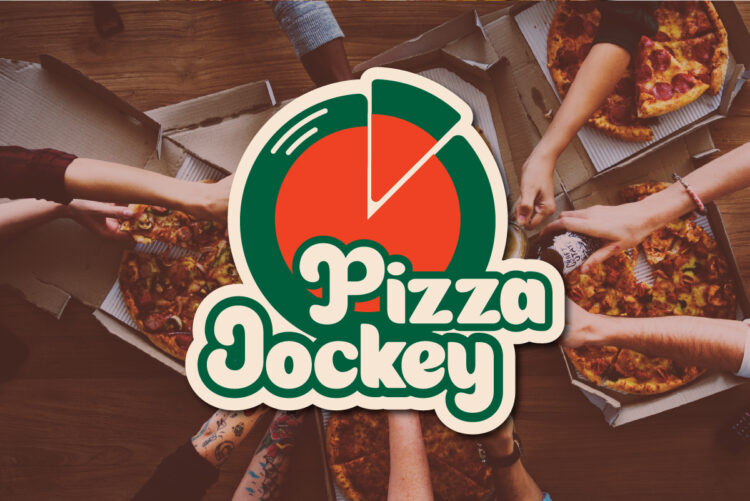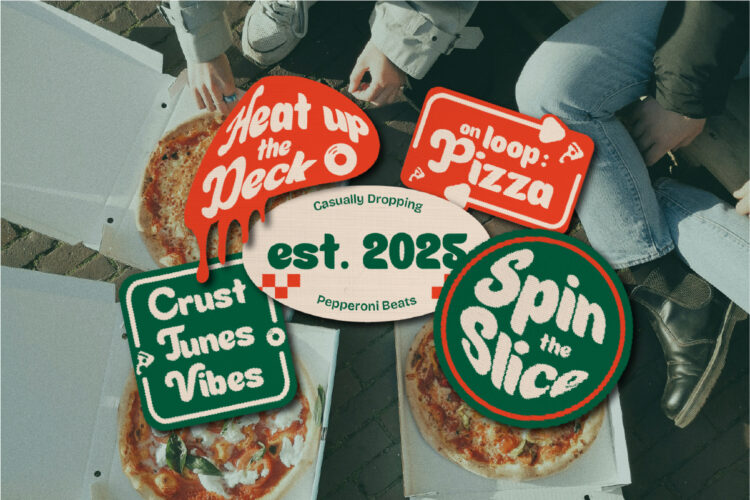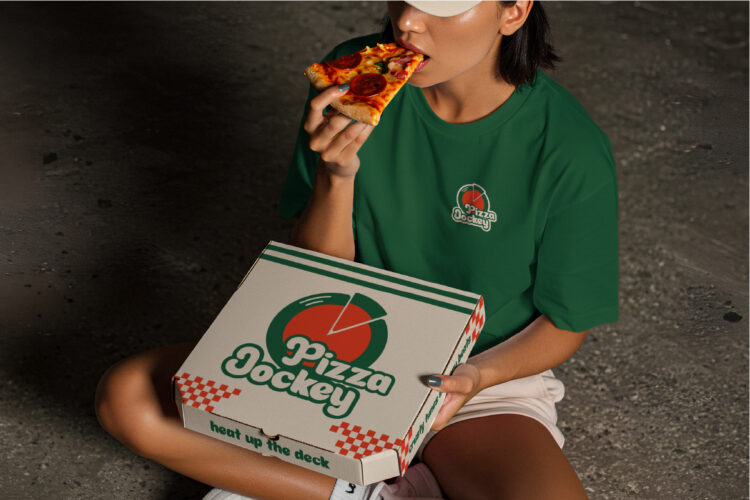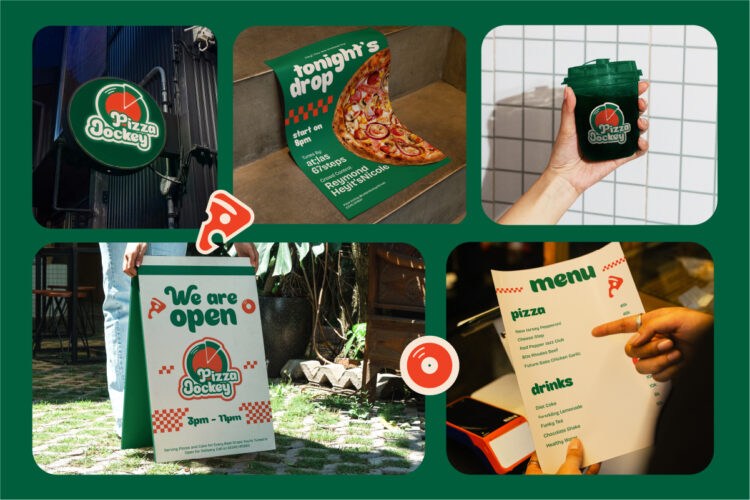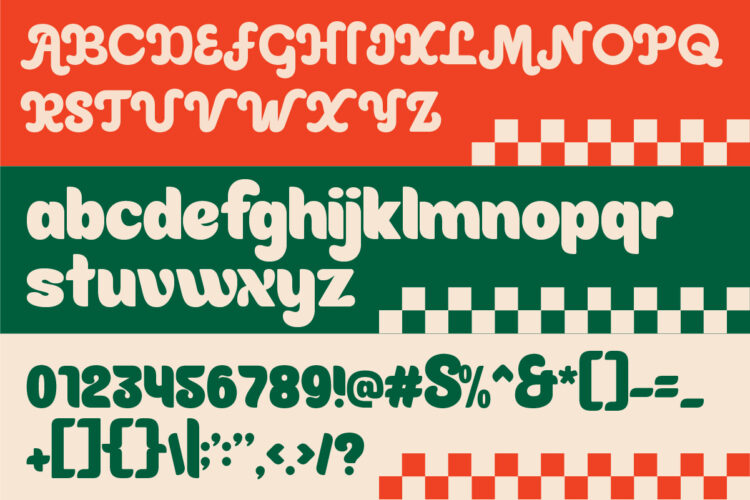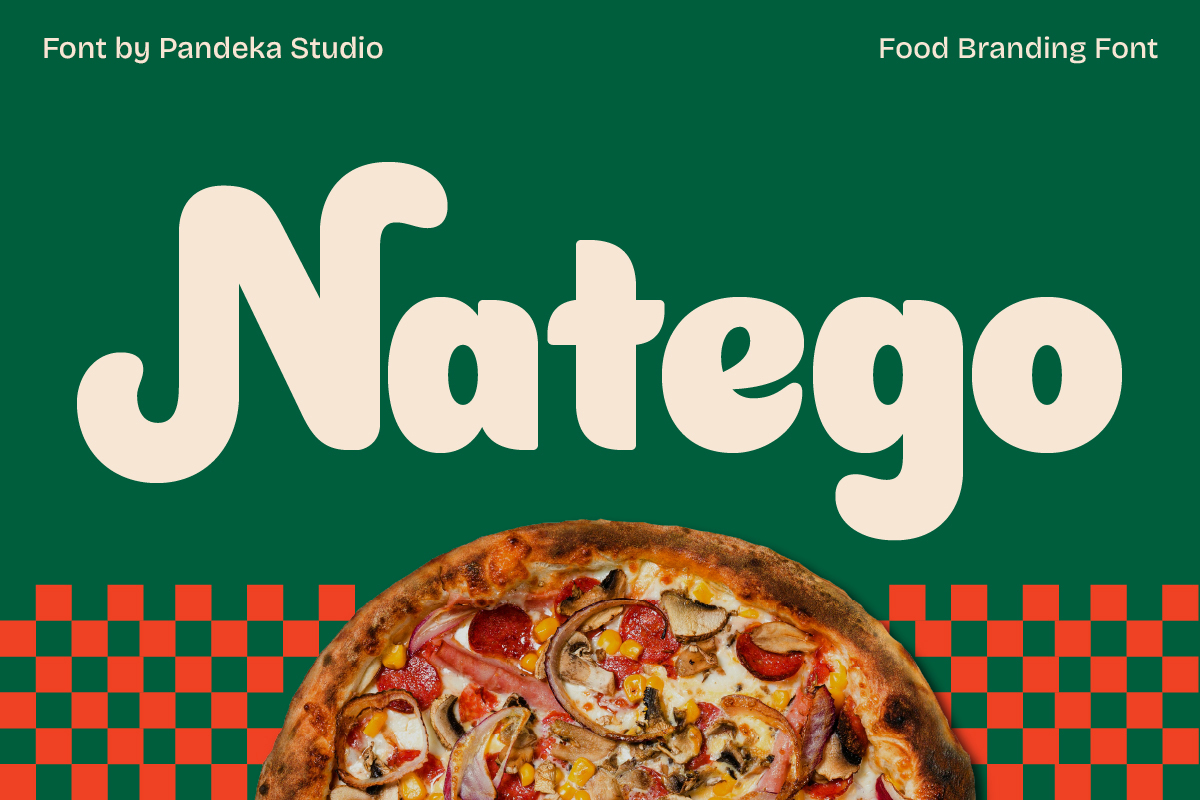
Natego is a playful and bold food branding font designed to bring fun, flavor, and personality into your designs. With its rounded shapes and friendly character, Natego creates an appetizing and eye-catching look that works perfectly for modern food brands and casual restaurant identities.
This font comes with 2 styles: Regular and Slant, and includes uppercase, lowercase, numbers, punctuation, and multilingual support. Its lively style makes it ideal for pizza brands, fast food packaging, café menus, snack products, restaurant logos, food promotions, and social media marketing.
- 2 Style: Regular and Slant
- Full Character Set: Uppercase, lowercase, numbers, symbols, and punctuation
Language Support: Danish, English, Estonian, Filipino, Finnish, French, Friulian, Galician, German, Gusii, Indonesian, Irish, Italian, Luxembourgish, Norwegian Bokmål, Norwegian Nynorsk, Nyankole, Oromo, Portuguese, Romansh, Rombo, Spanish, Swedish, Swiss-German, Uzbek (Latin)